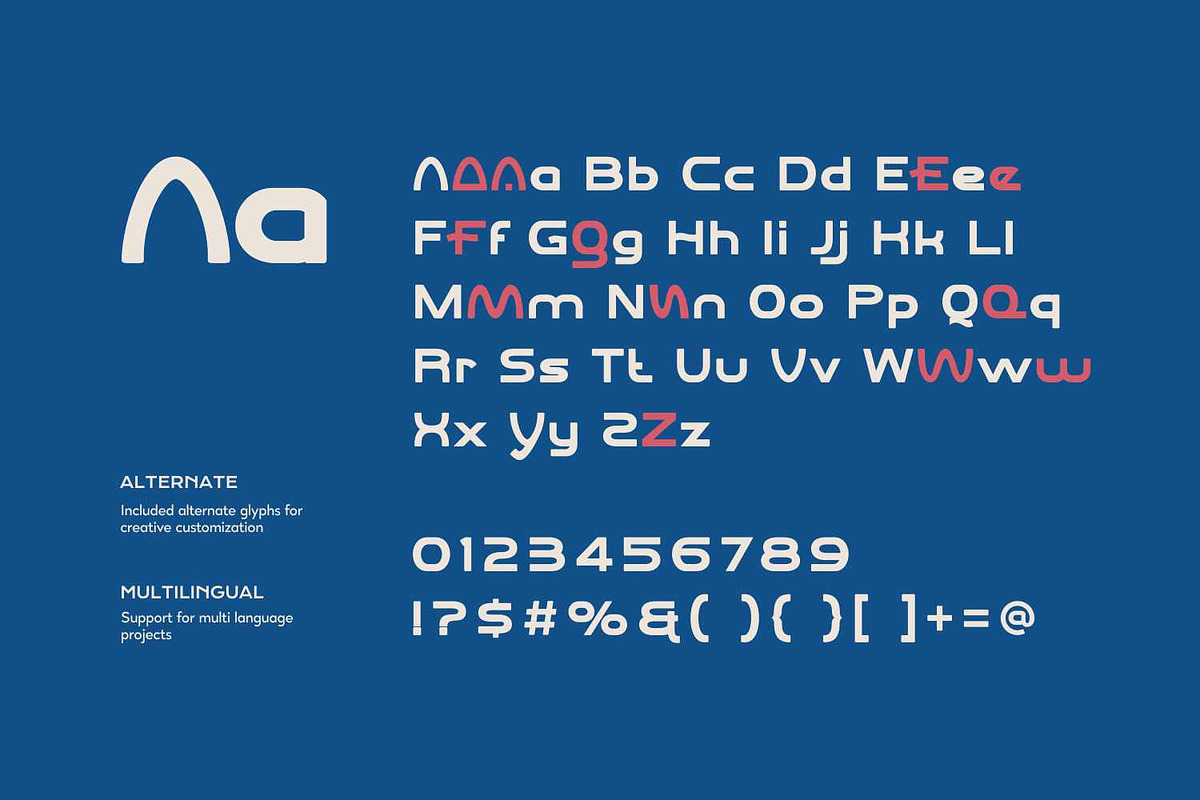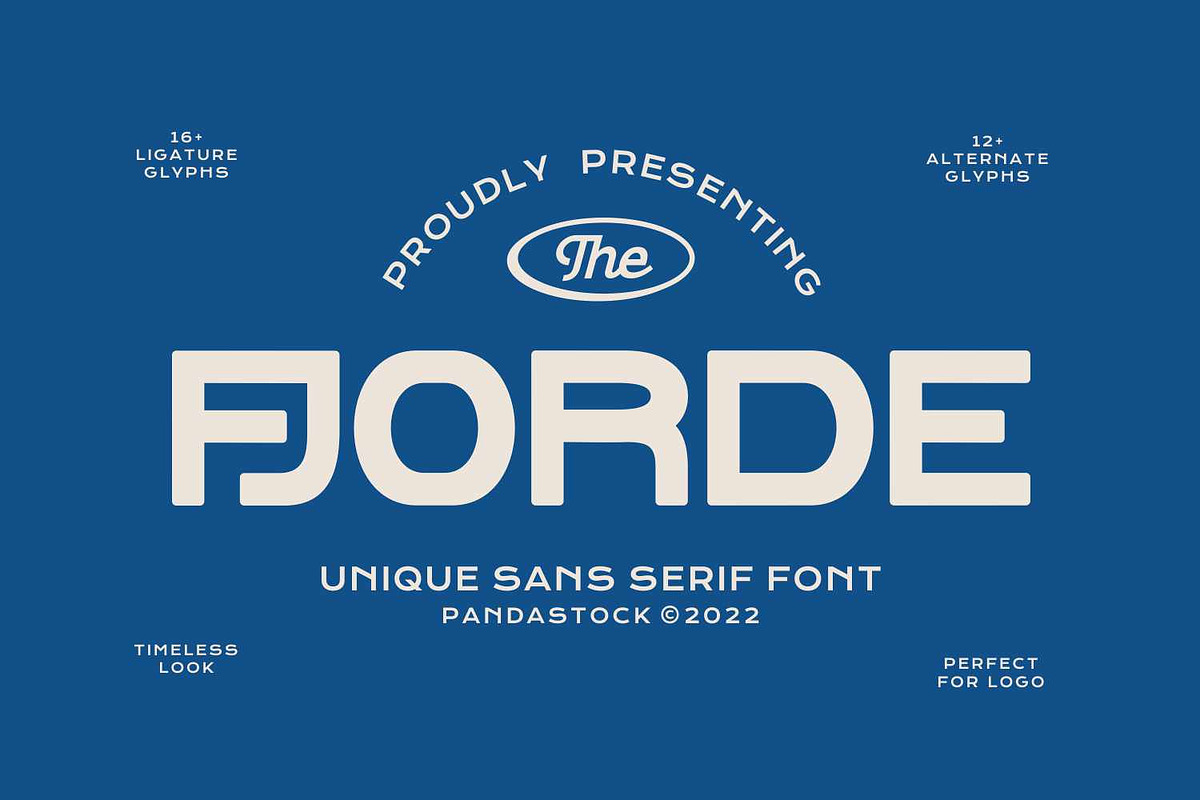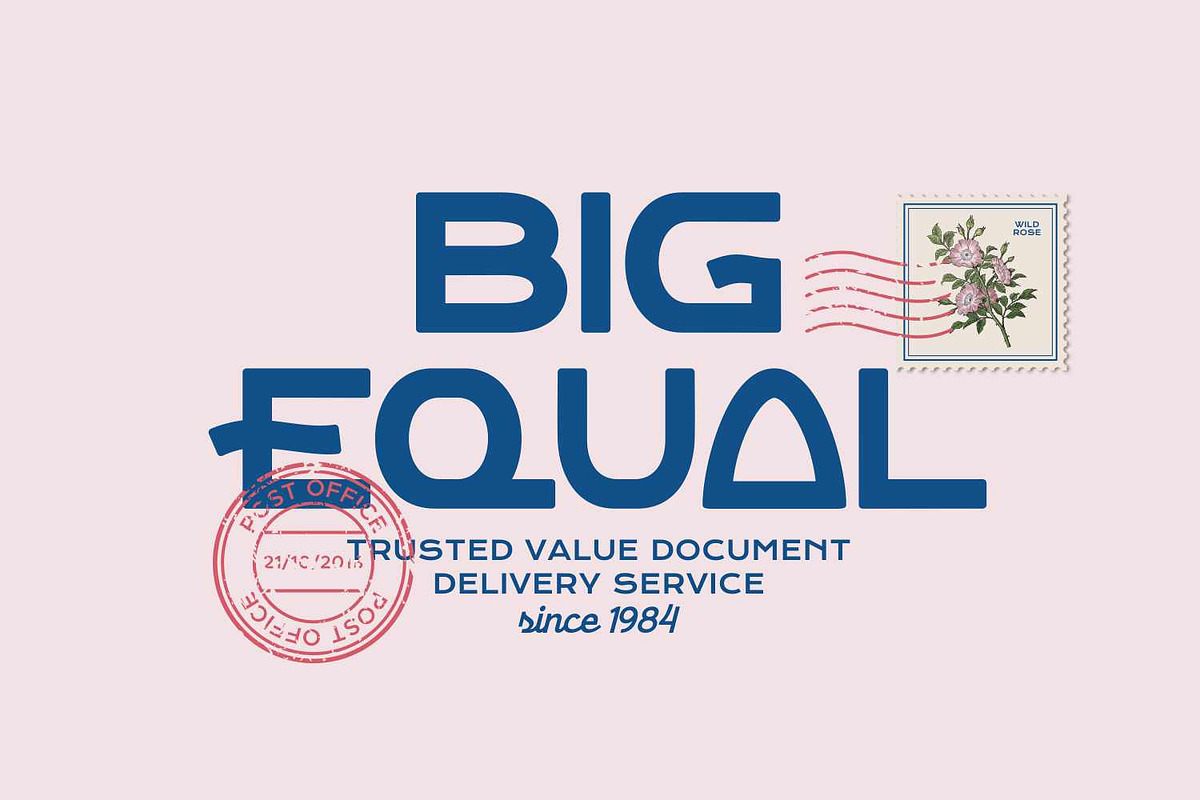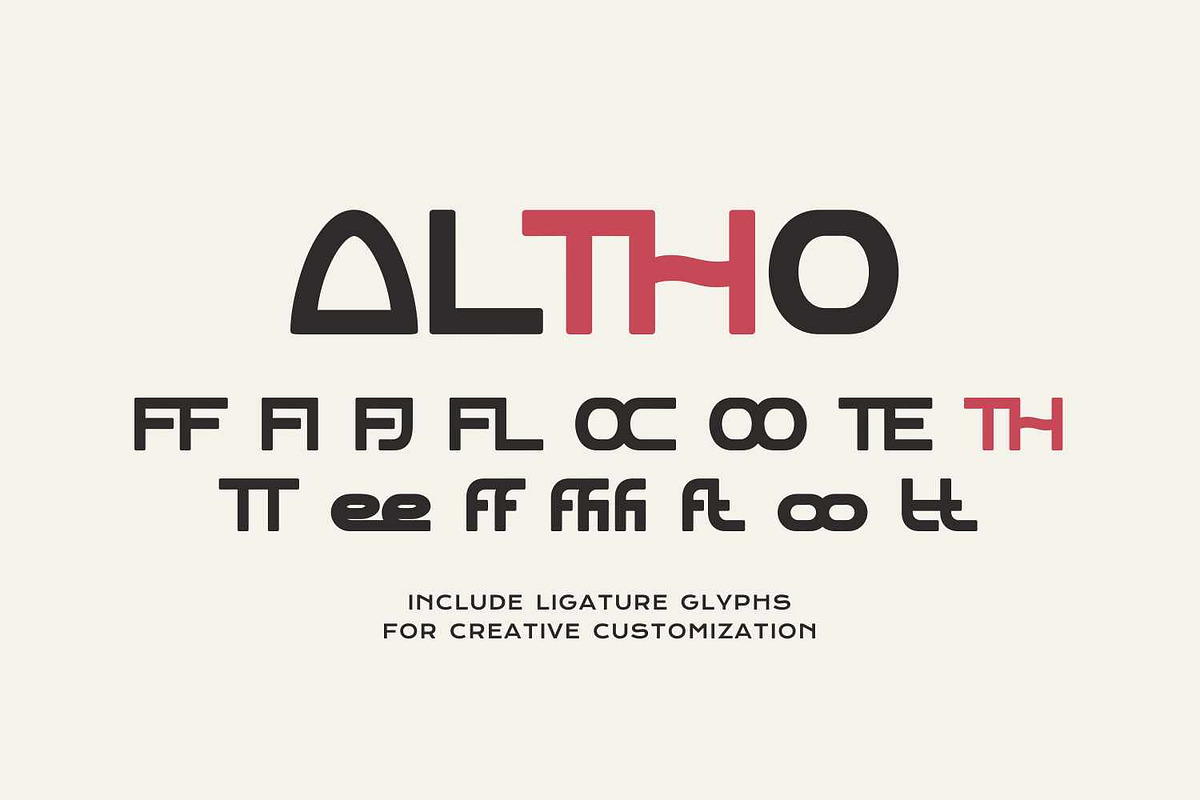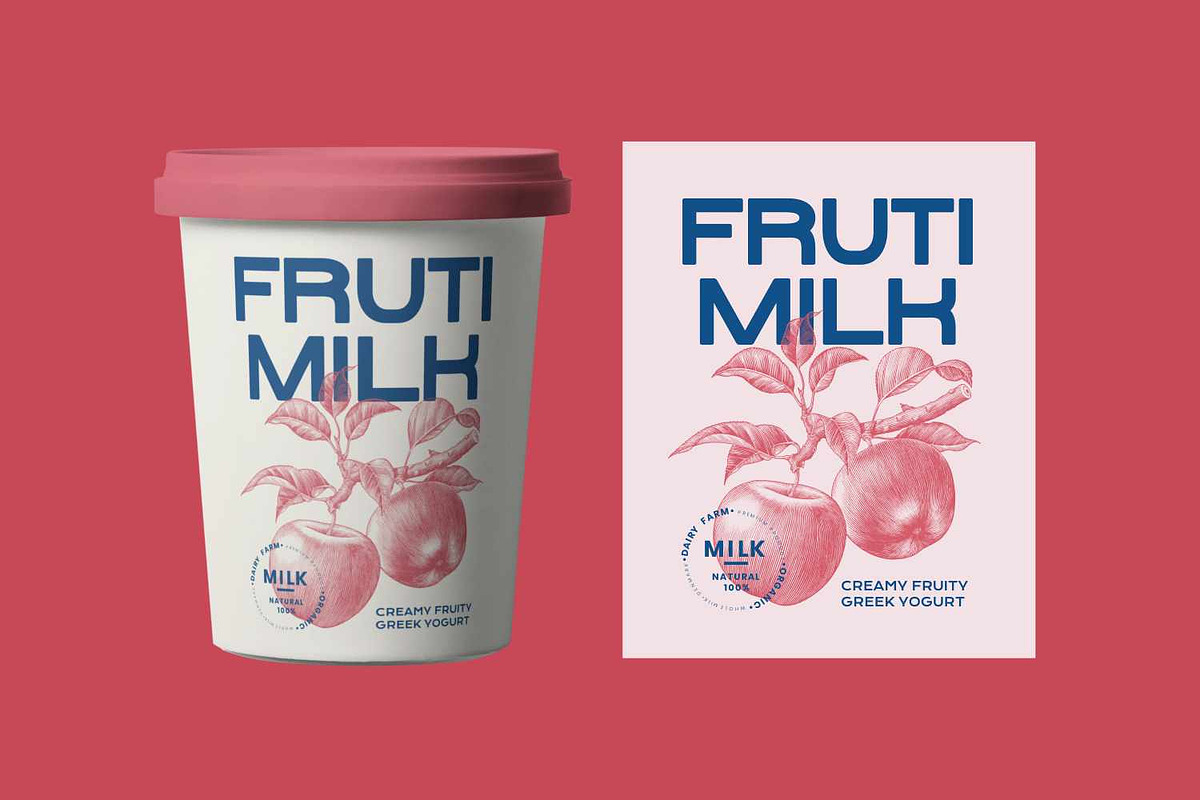
Fjorde - Bold Sans Serif Fonts
Fjorde is bold sans serif fonts with visual elegance, smooth curves, and beautiful ligatures clear, making your work look true and attractive.
A versatile font that works in both large and small sizes. This font is suitable for a wide variety of projects such as invitations, logos, branding, magazine, photography, card, product packaging, mugs, quotes, poster, labels, signatures, and more.
A font that is perfect for all business sectors including personal projects, studio, corporate, creative agency, industrial, company, etc.
- Punctuation, Number, and Symbol
- Multilingual Support ÀÁÂÃÄÅÆÇÈÉÊËÌÍÎÏÐÑÒÓÔÕÖØÙÚÛÜÝ